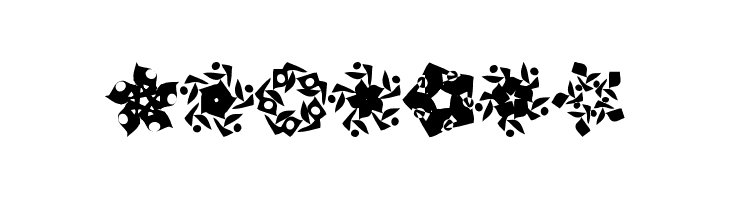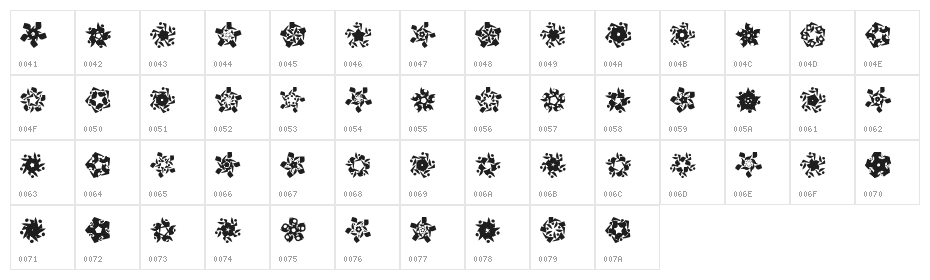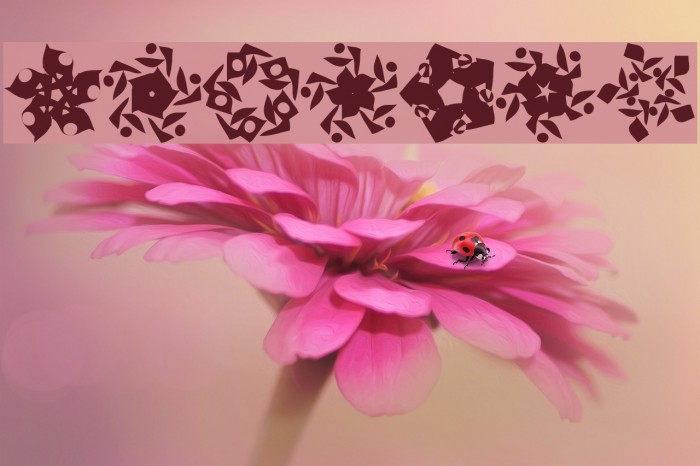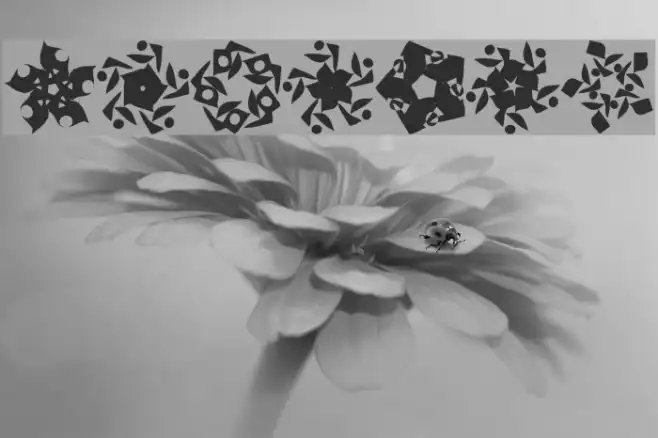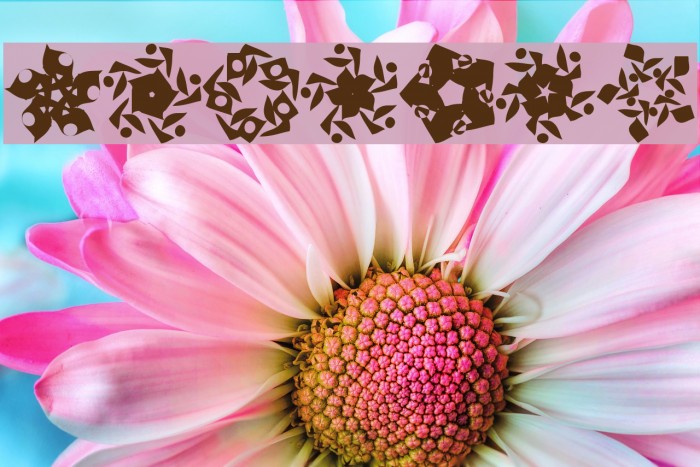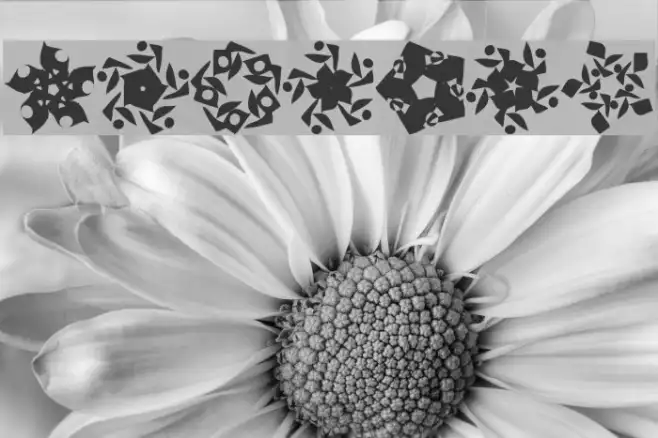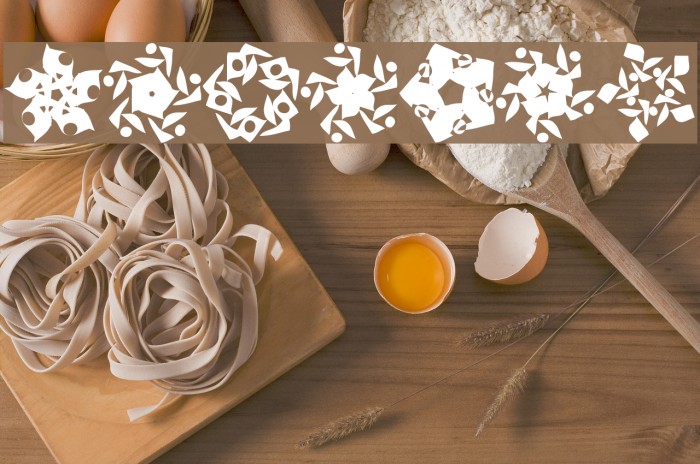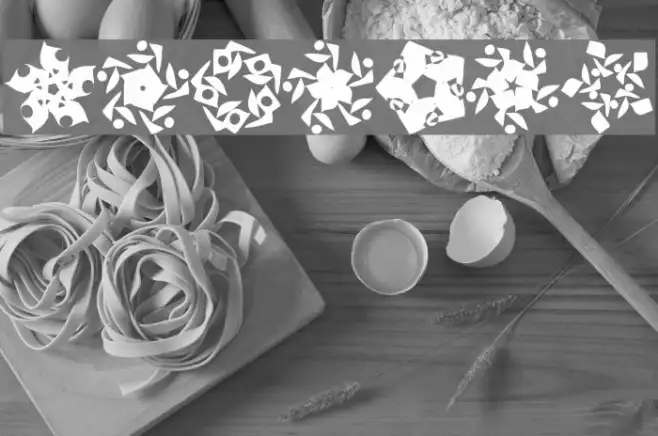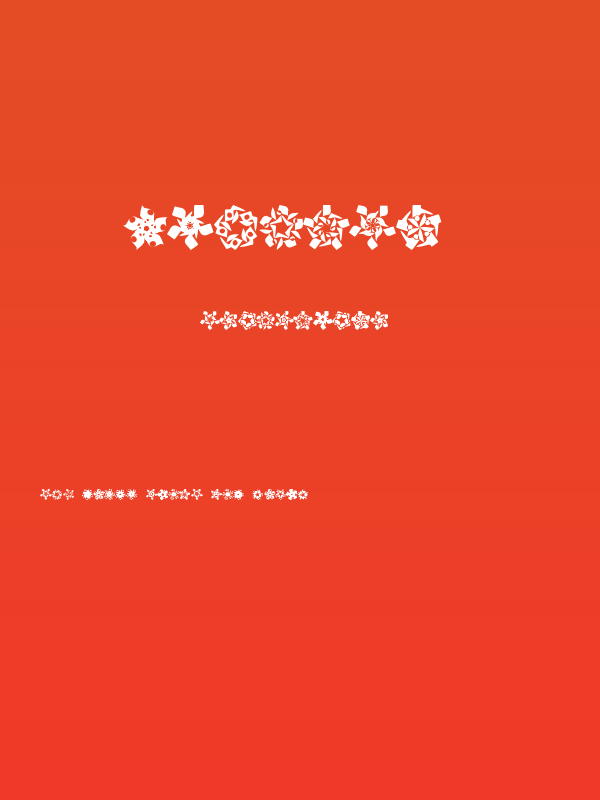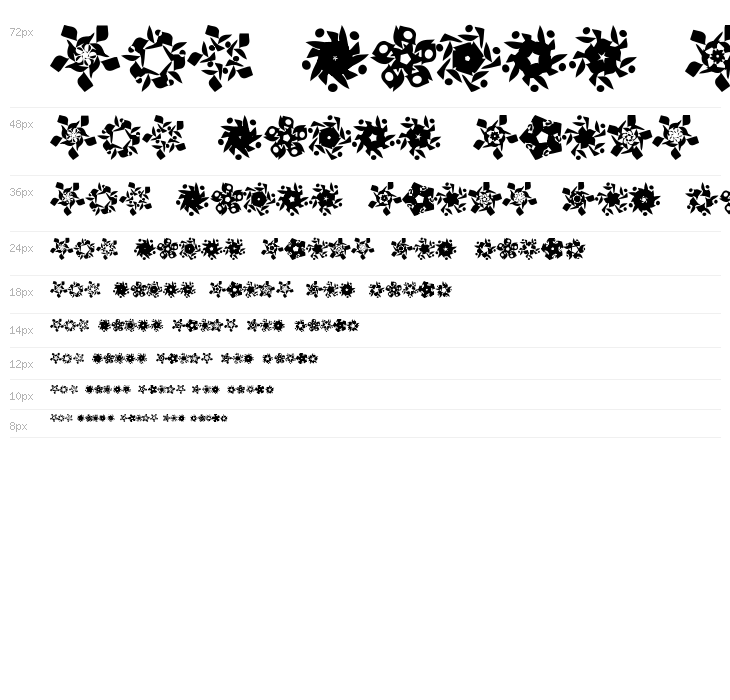
LaMorte6 Font
LaMorte6 Description
This font features intricate, decorative characters that resemble abstract floral or geometric patterns. Each character is uniquely designed with a high level of detail, making it more of an artistic expression than a traditional typeface. The complexity and ornamental nature of the characters suggest a focus on visual impact rather than readability. This font is likely intended for decorative purposes, where the aesthetic appeal is prioritized over legibility.
| Use Case | Logos, Decorative elements |
| Proposed Projects | Ideal for artistic projects, decorative posters, unique invitations, or any design work where visual flair is prioritized. |